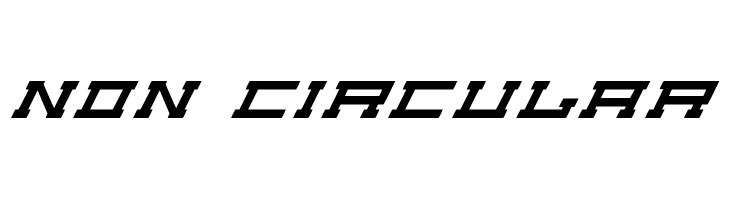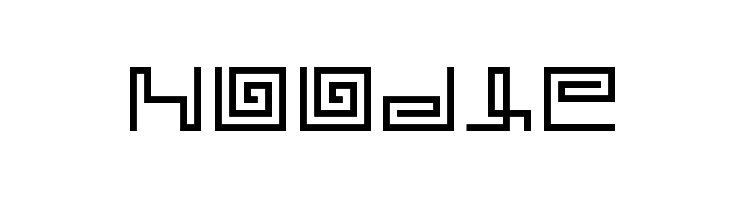
A bold, angular font with a futuristic and mechanical style.
A geometric, maze-like font with a futuristic, digital aesthetic.
A bold, angular, and slanted font with a dynamic and modern design.
A bold, angular font with a dynamic slant and futuristic style.
A bold, geometric font with sharp angles and an octagonal style.
A geometric font with octagonal shapes and sharp angles, offering a modern and futuristic look.